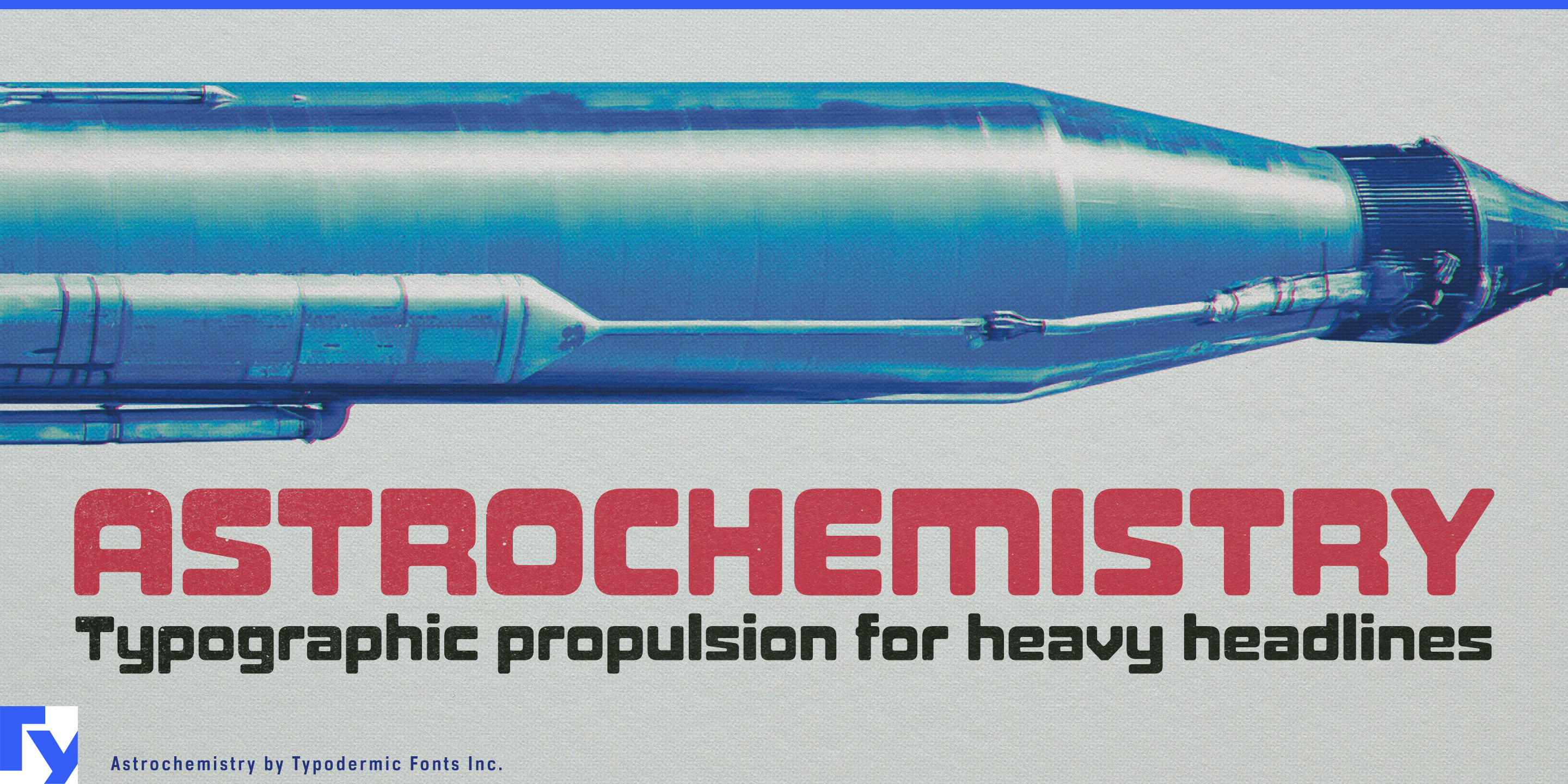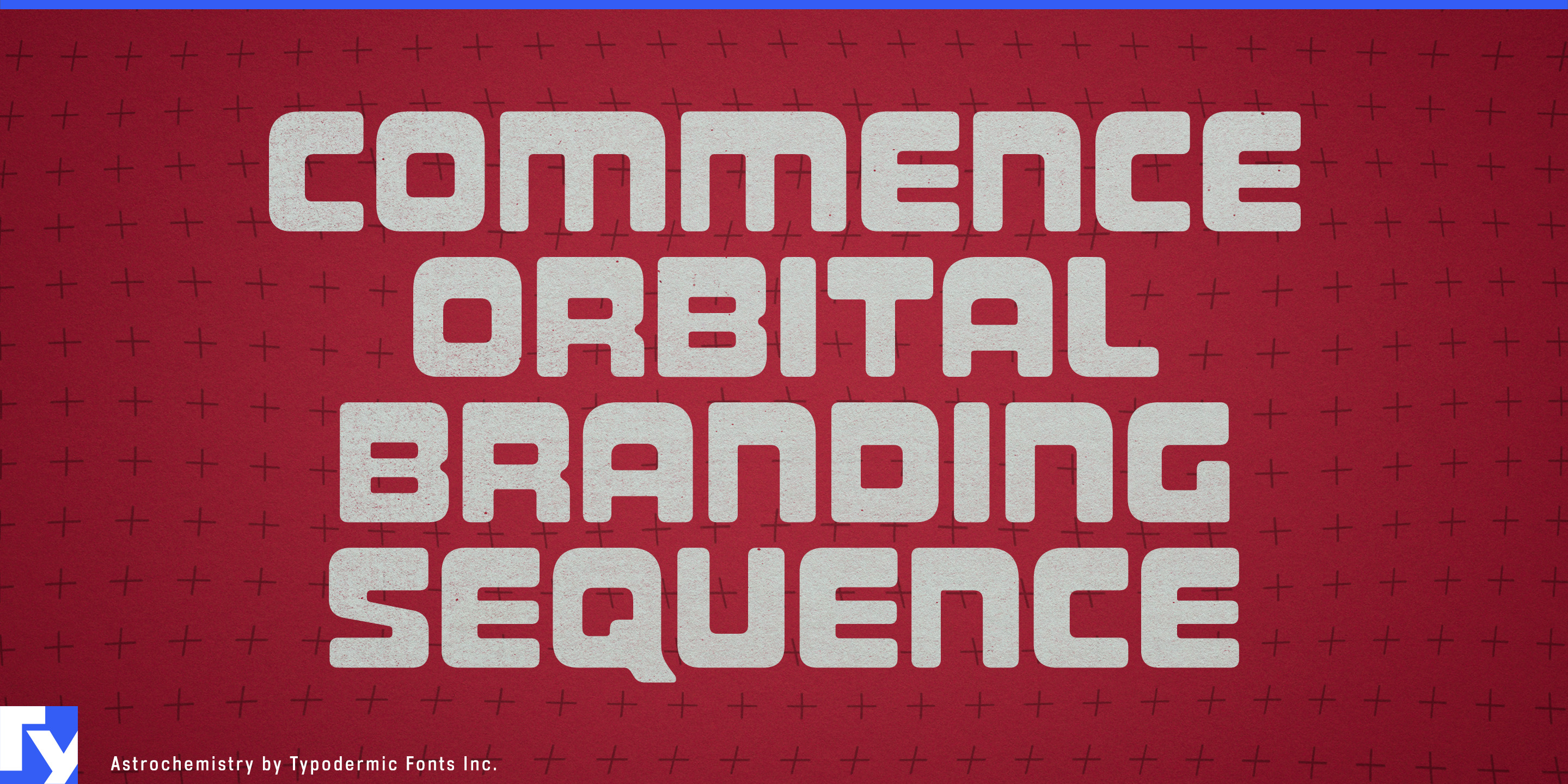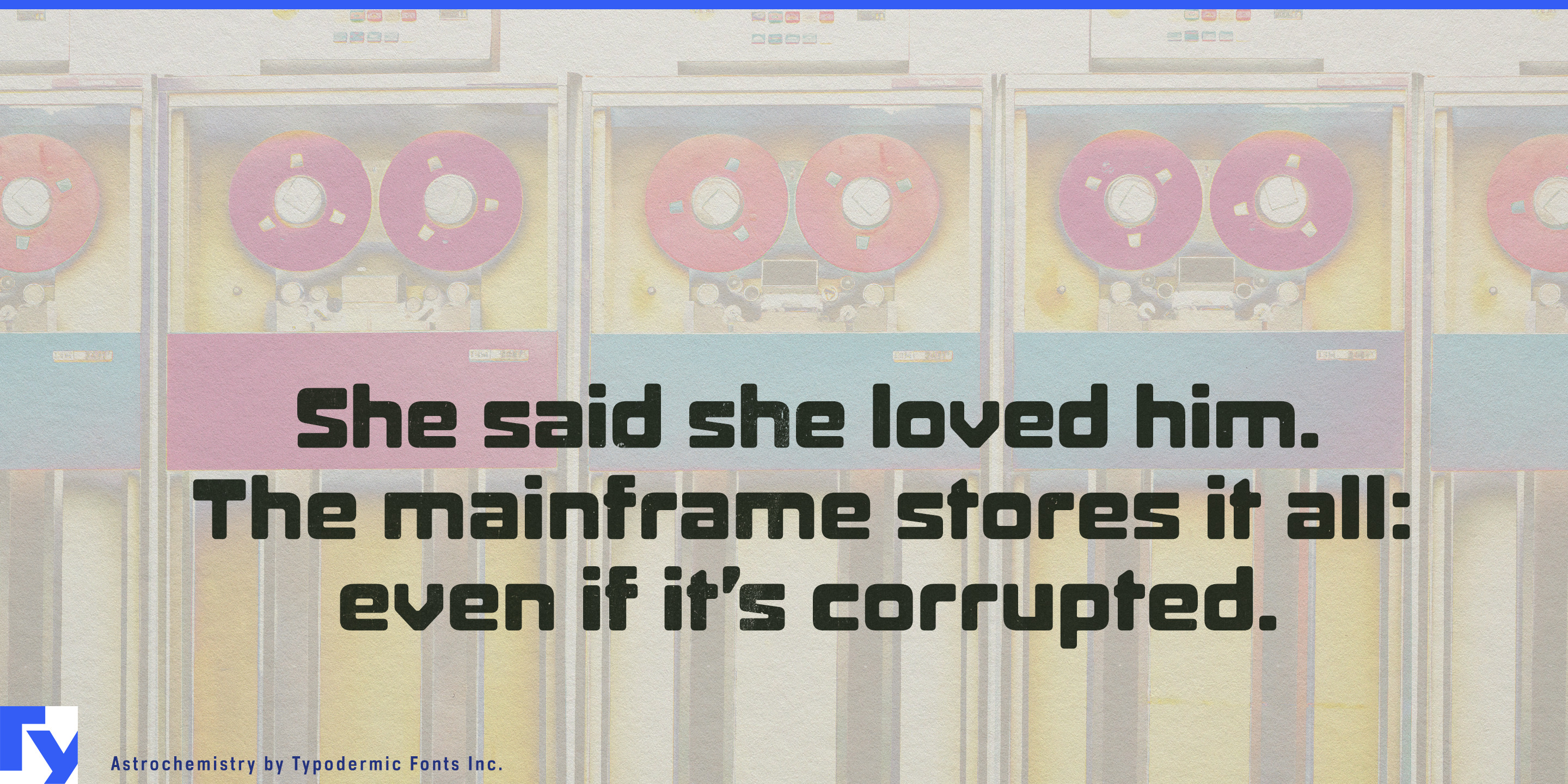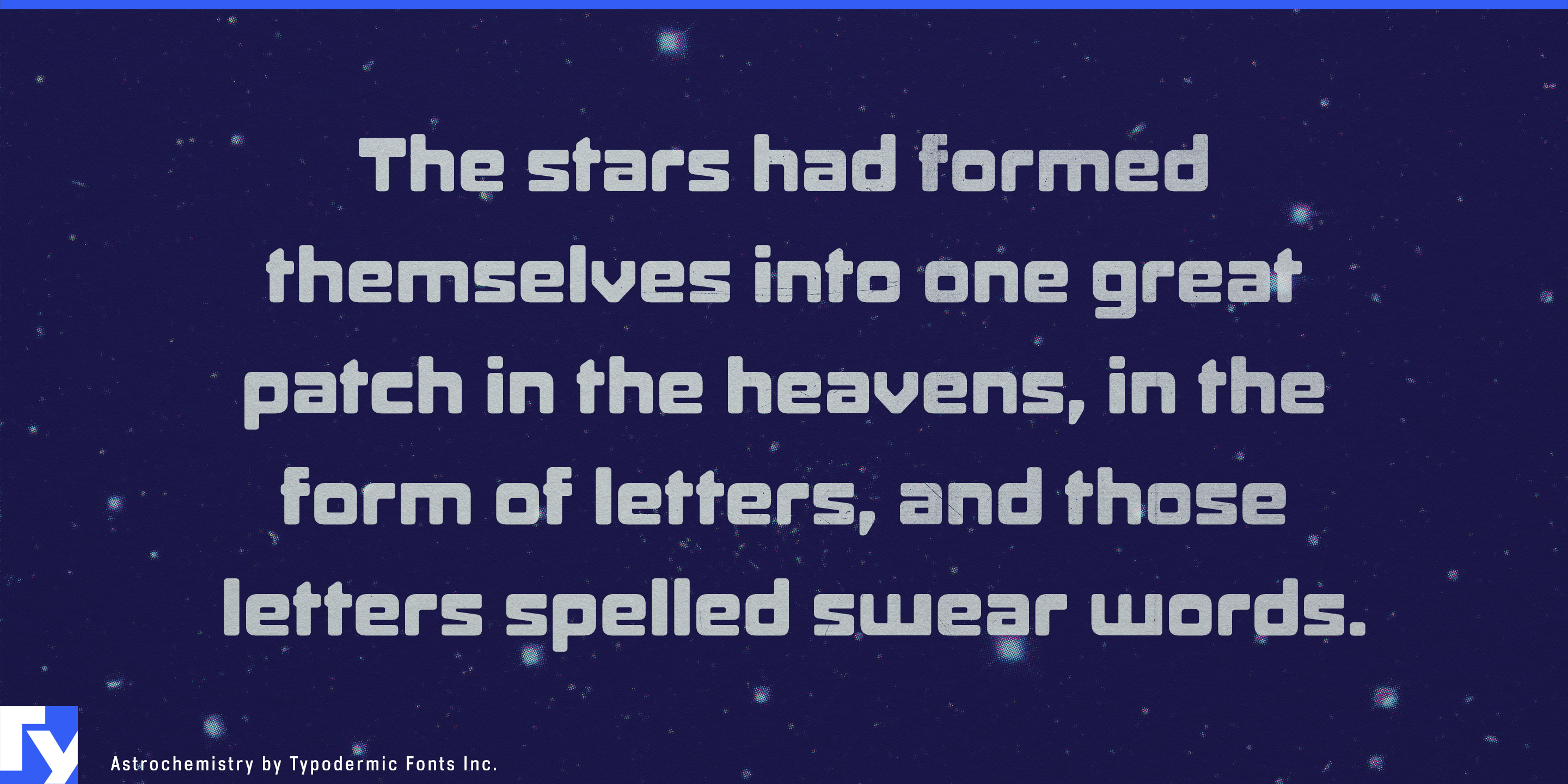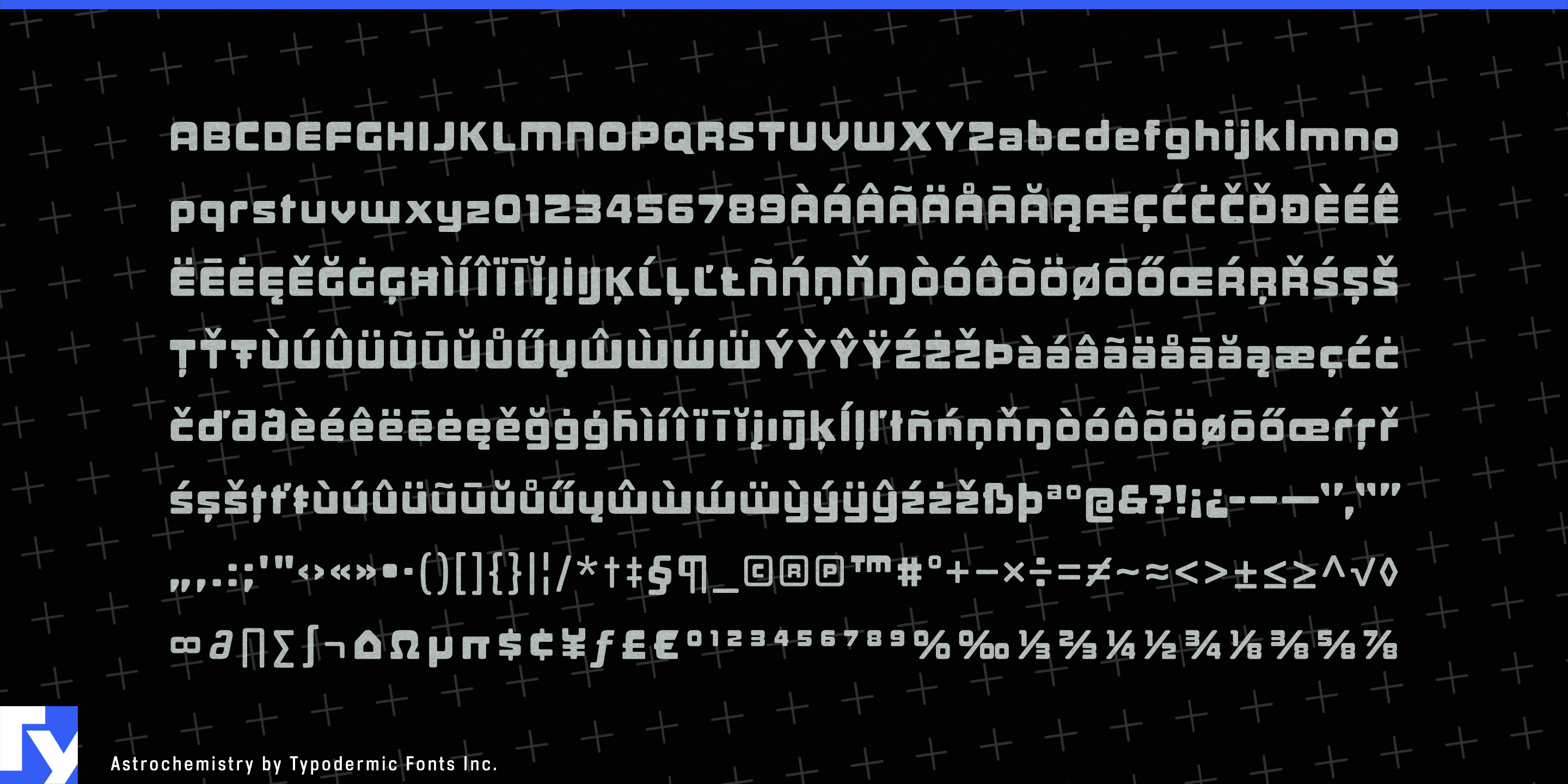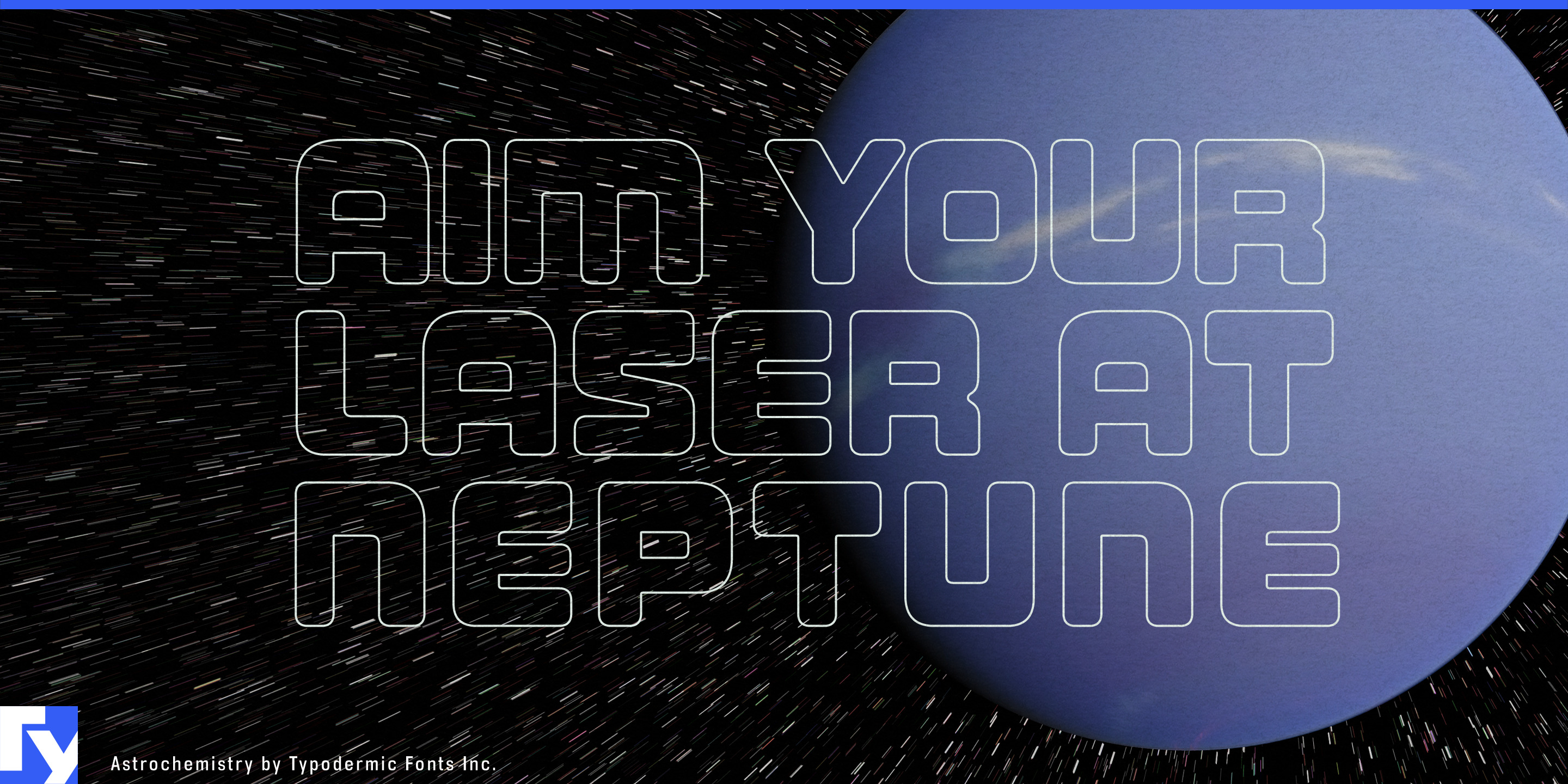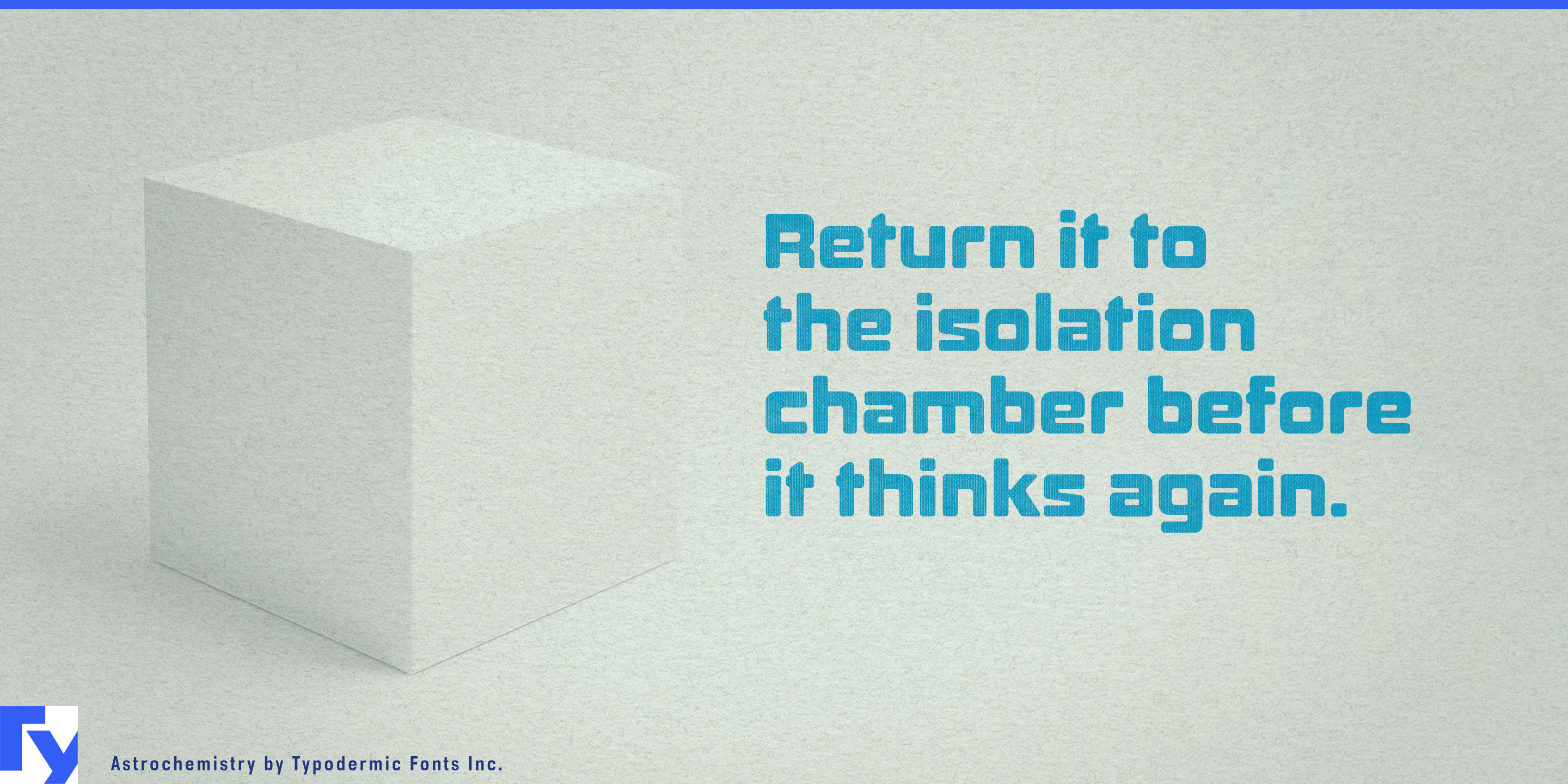
Astrochemistry
Scientific equipment has an odd branding problem. It has to look precise and credible, but the usual solutions can make every instrument and research system disappear into the same neutral technical language. Astrochemistry gives laboratory technology something more substantial to work with. Its broad, square construction and top-heavy forms feel engineered, while the slightly unusual proportions keep the result from becoming sterile.
Analytical instruments are a natural fit. Chromatographs, spectrometers, sample processors, environmental chambers and automated laboratory systems can use Astrochemistry for instrument names, model families, launch graphics and trade-show displays, leaving controls, specifications and operating instructions to a quieter companion face.
Battery and electrochemistry research give that language an especially contemporary use. Cell testers, battery cyclers, impedance analyzers and climatic chambers can use Astrochemistry for equipment-series names, research-program identities, conference graphics and technology exhibitions.
Engineered materials provide another route. 3D-printing resins, specialty coatings, adhesives, battery materials and laboratory consumables can use its heavyweight geometry for product families, material grades and package-front names. Science centres, chemistry exhibitions and hands-on STEM programs can exploit the same chunky forms when technical subjects need to feel approachable without becoming cartoonish.
At larger scale, Astrochemistry can handle laboratory-zone names, research-building headings and equipment-bay identifiers. Its strength is giving scientific hardware and technical subjects more presence than neutral laboratory typography usually provides.